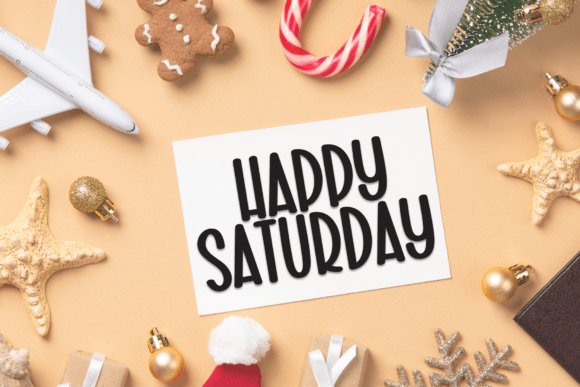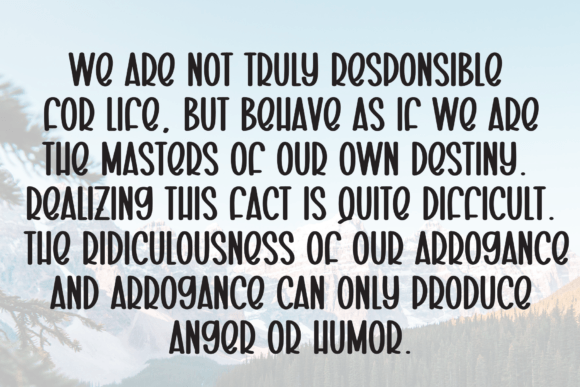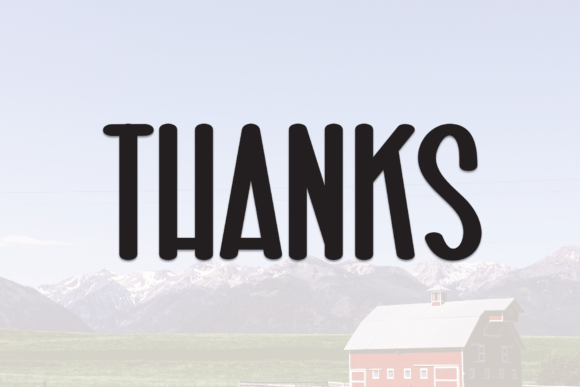
Introduction to Simplicity Farmhouse Font Font
Fonts play a crucial role in design, and the Simplicity Farmhouse Font font is a typeface that brings both character and versatility to any project. Whether you’re working on a branding project, a website, or a print design, the Simplicity Farmhouse Font font offers a unique style that can elevate your work.
Simplicity Farmhouse is a sweet and friendly handwritten font.
The Simplicity Farmhouse Font font is more than just a typeface – it’s a design tool that helps you communicate your message with style and clarity. Its unique character set and versatile design make it suitable for a wide range of applications, from elegant invitations to bold headlines.
With its carefully crafted letterforms and balanced proportions, the Simplicity Farmhouse Font font ensures readability and visual appeal across all mediums.
What makes Simplicity Farmhouse Font font special?
The Simplicity Farmhouse Font font stands out with its unique design, exceptional readability, and versatility across various design applications.